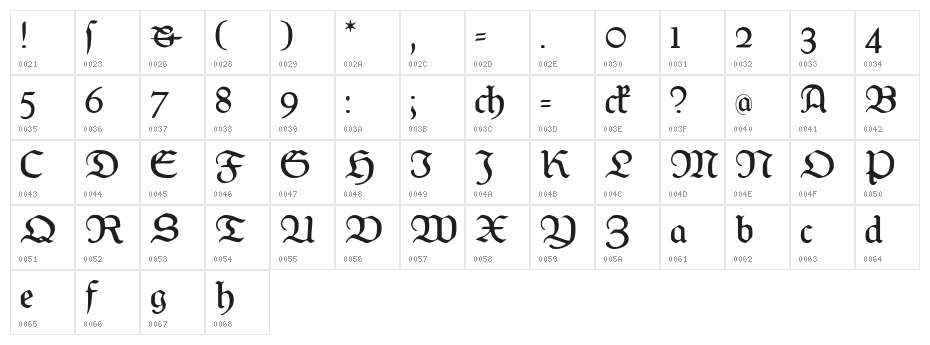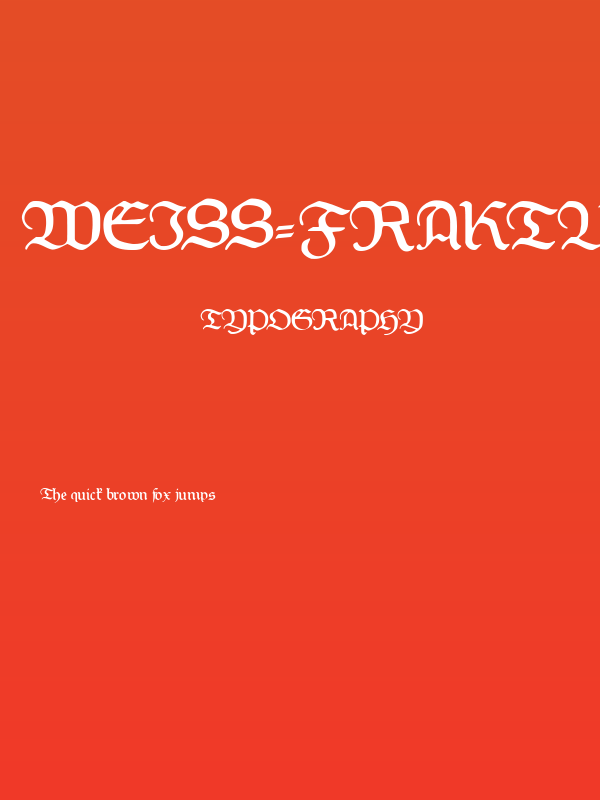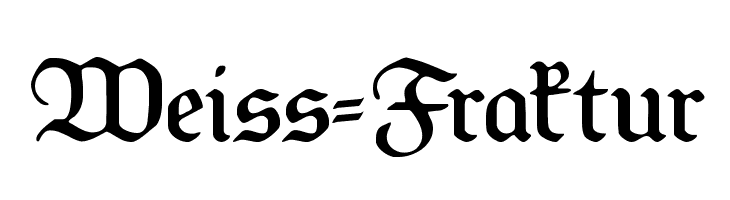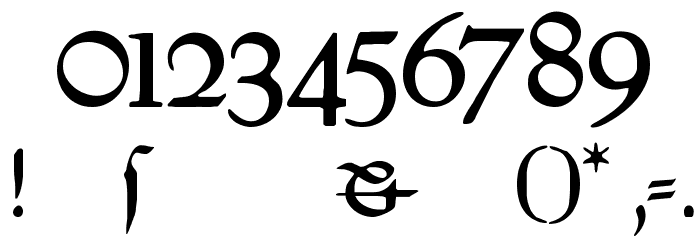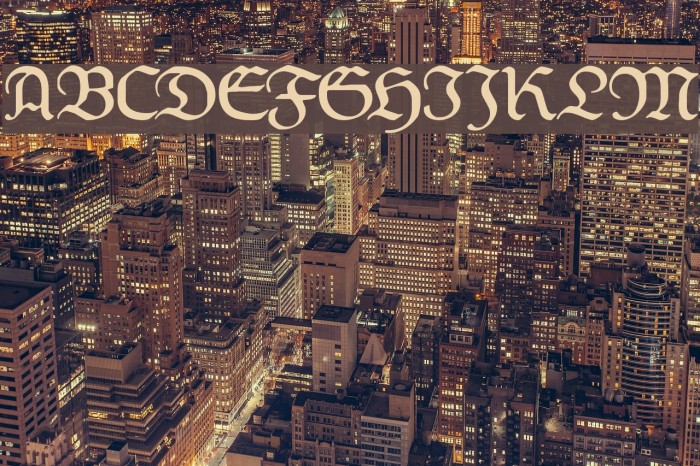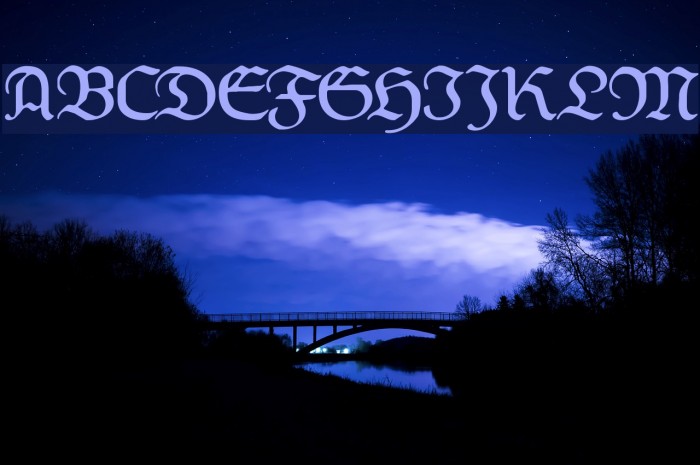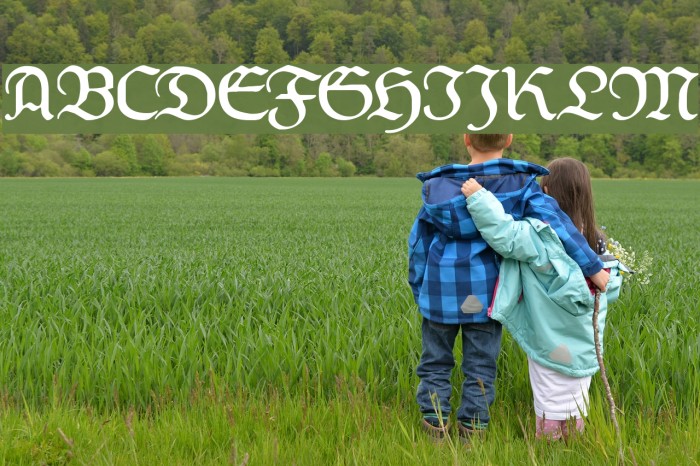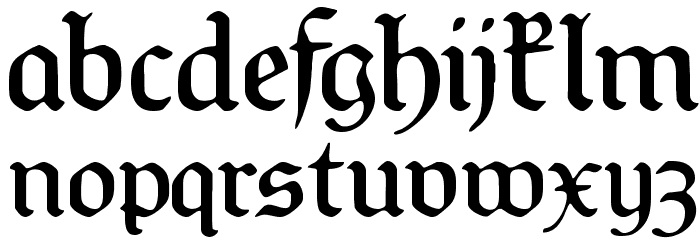
Weiss-Fraktur Font
Weiss-Fraktur Description
This font is a classic example of the Blackletter style, characterized by its intricate and ornate letterforms. The uppercase letters are highly decorative with sharp, angular lines and elaborate serifs, while the lowercase letters maintain a consistent flow with a more rounded appearance. The numbers are bold and distinct, matching the overall aesthetic of the font. Special characters are uniquely styled, adding to the font's historical and traditional feel. This font is reminiscent of medieval script, often used in historical documents and formal invitations.
| Overall Style | Classic |
| Use Case | Headlines, Logos, Decorative text |
| Proposed Projects | Ideal for projects that require a historical or traditional touch, such as wedding invitations, certificates, book covers, and branding for luxury products. |